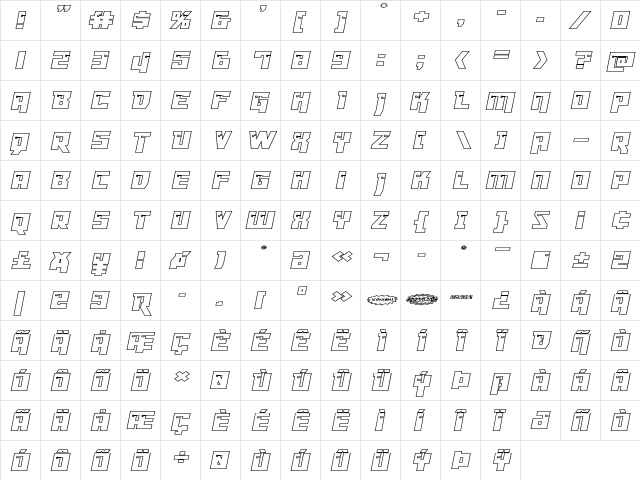
Dangerbot Expanded Outline Expanded Outline
Design Context for Dangerbot Expanded Outline Typeface
Dangerbot Expanded Outline brings ornamental detail and strong personality to headlines and identities, where visual impact matters more than quiet functionality.
Font Pairing: Pair with a clean neutral sans-serif for body copy to let Dangerbot Expanded Outline's character lead without overwhelming the composition.
Pro Tip: Use Dangerbot Expanded Outline exclusively at display sizes — it was designed to be seen, not read at length. Let a neutral companion handle body copy.